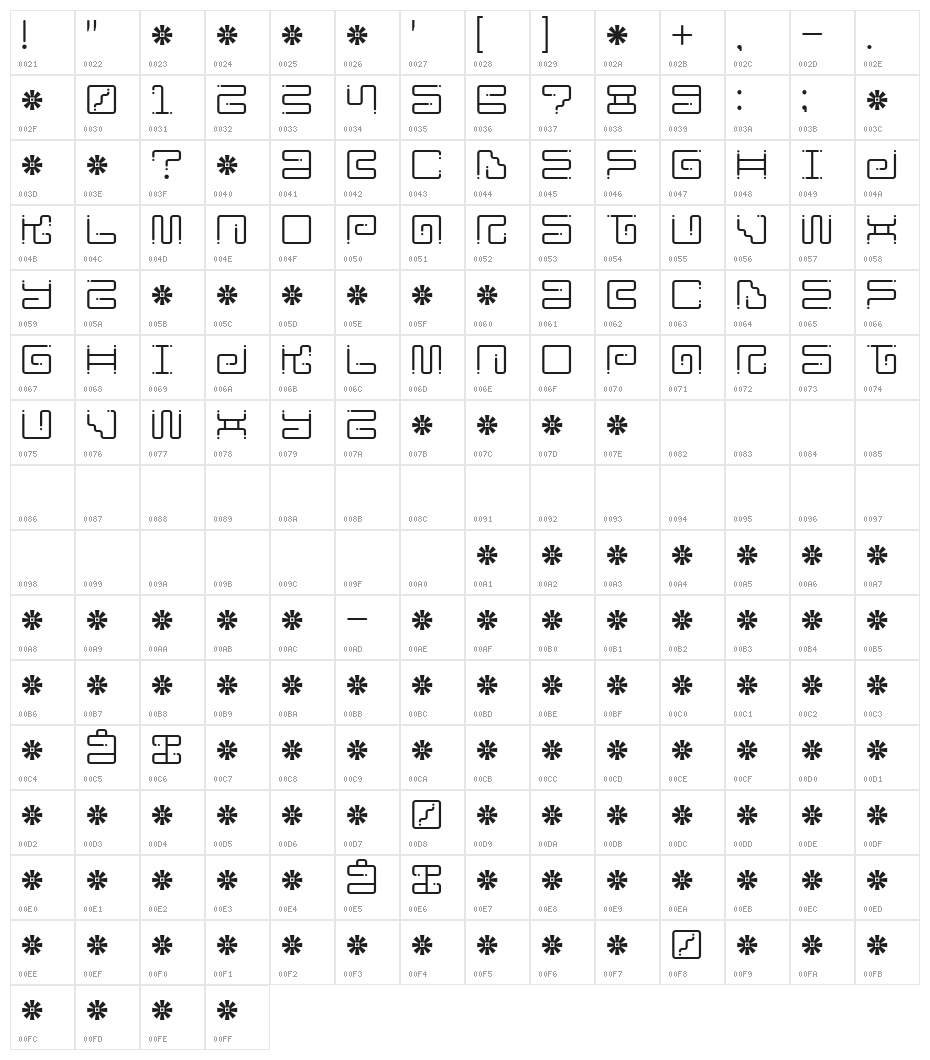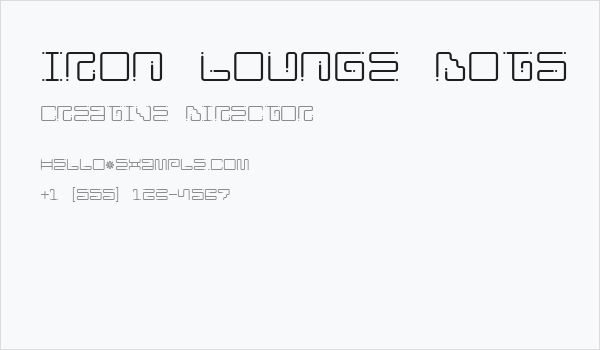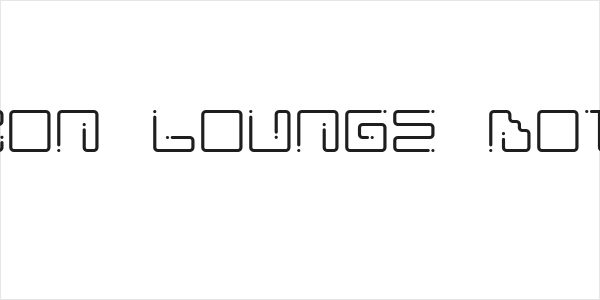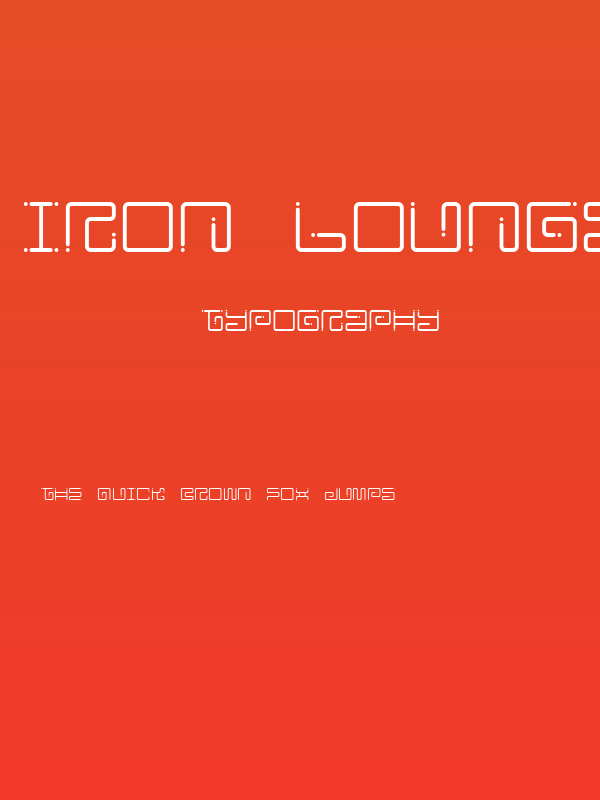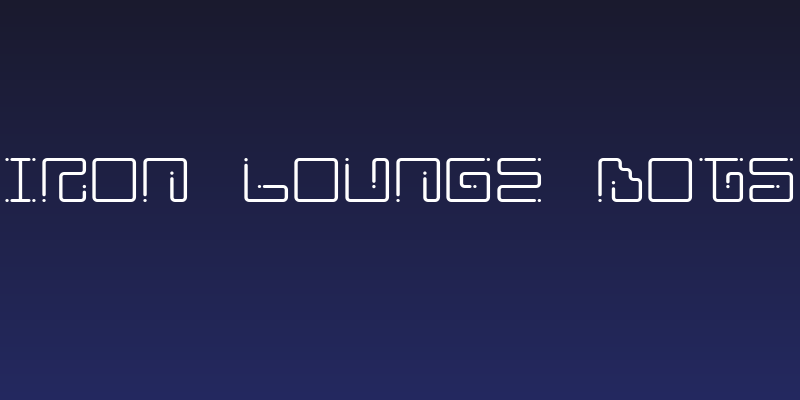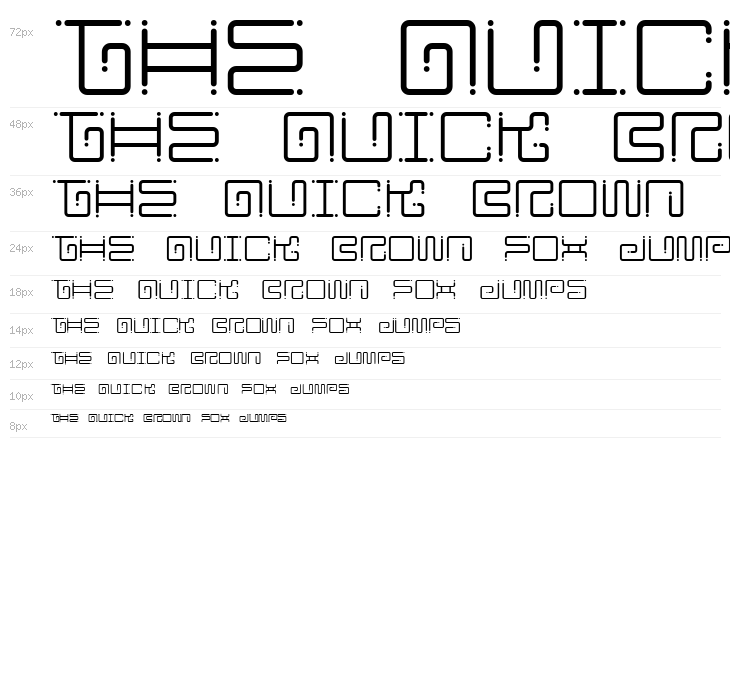
Iron Lounge Dots Font
Iron Lounge Dots Description
This font features a futuristic and geometric design, characterized by its use of dots and lines to form each character. The letters and numbers are constructed with a series of connected lines and strategically placed dots, giving it a digital and modern appearance. The font maintains a consistent stroke width throughout, contributing to its uniform look. The unique style of this font makes it stand out, with a playful yet structured aesthetic that is both eye-catching and innovative. The special characters are designed to match the overall theme, incorporating dots and lines to maintain coherence across the character set.
| Proposed Projects | Ideal for tech-related branding, digital art projects, futuristic posters, and video game interfaces. |